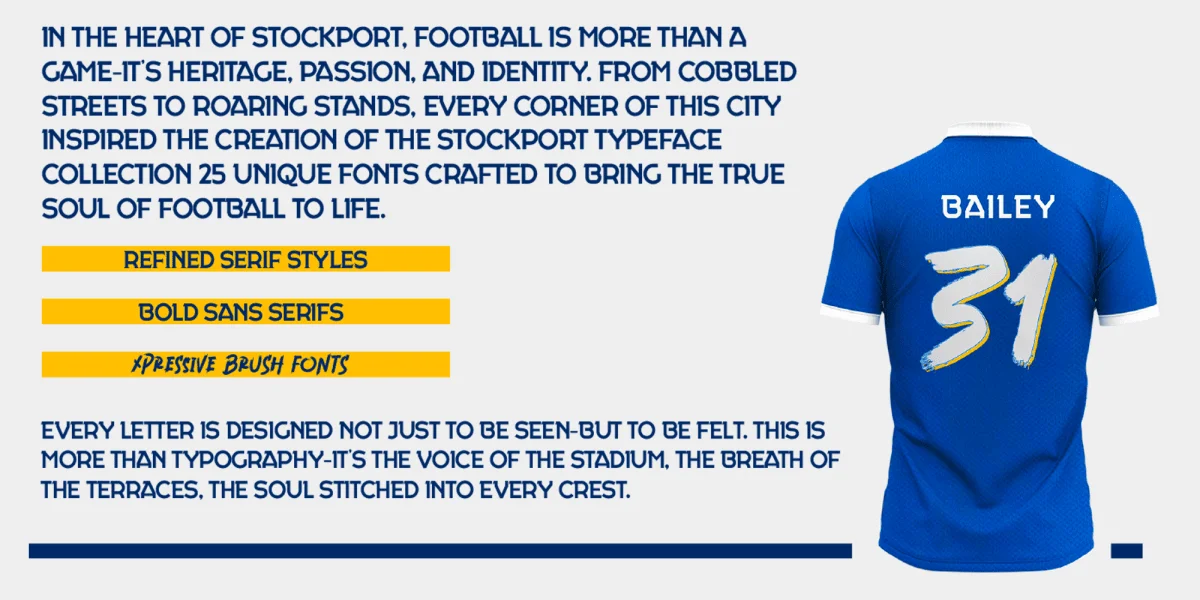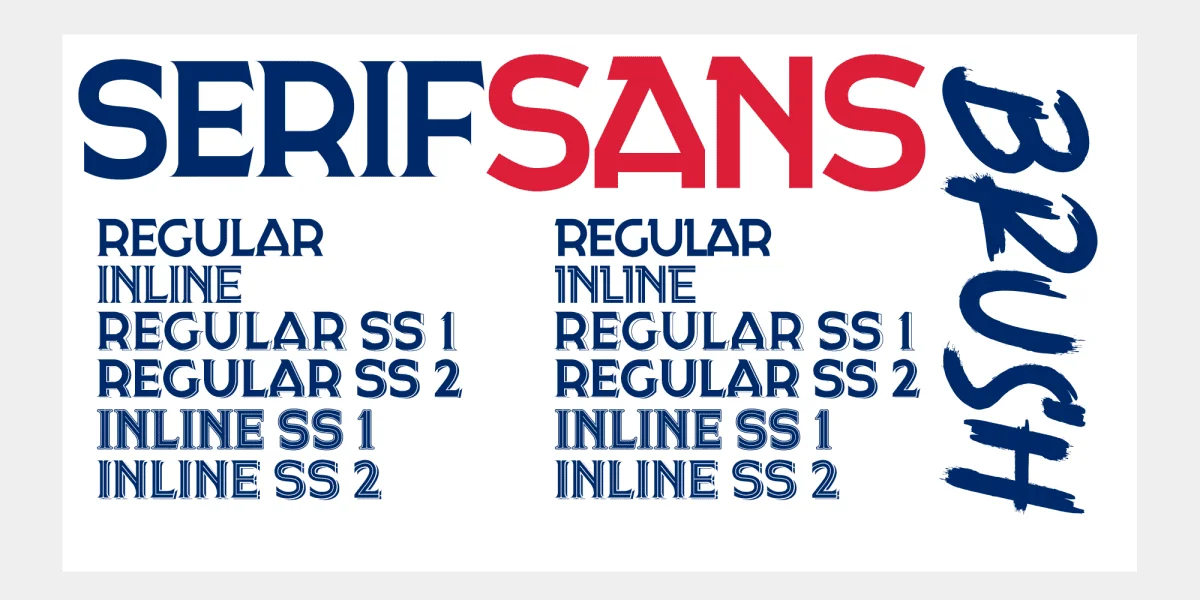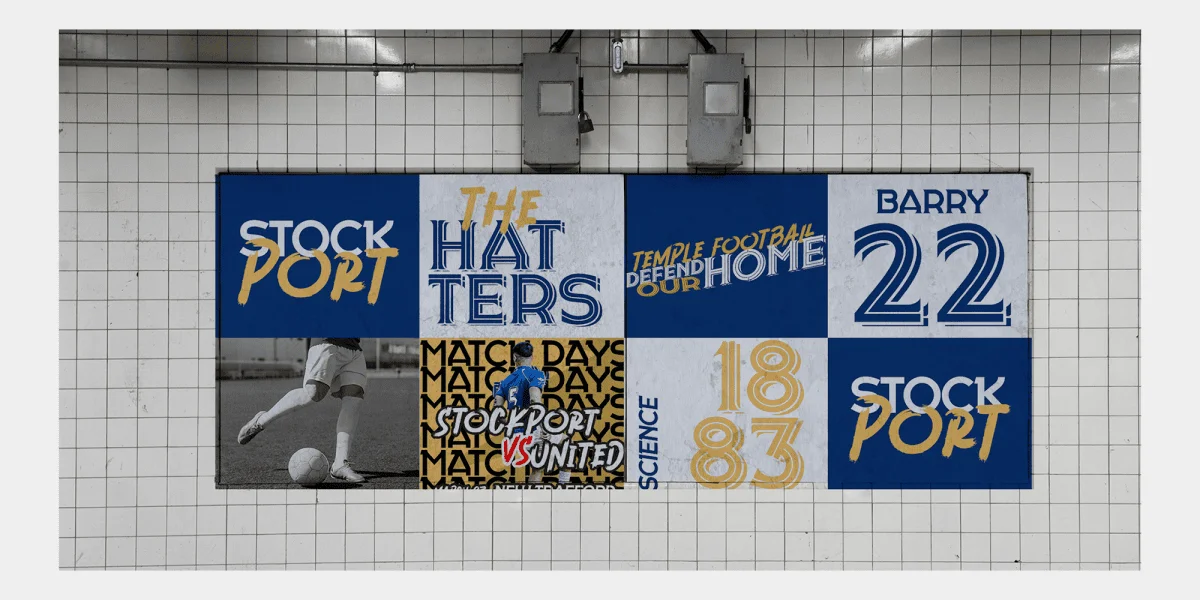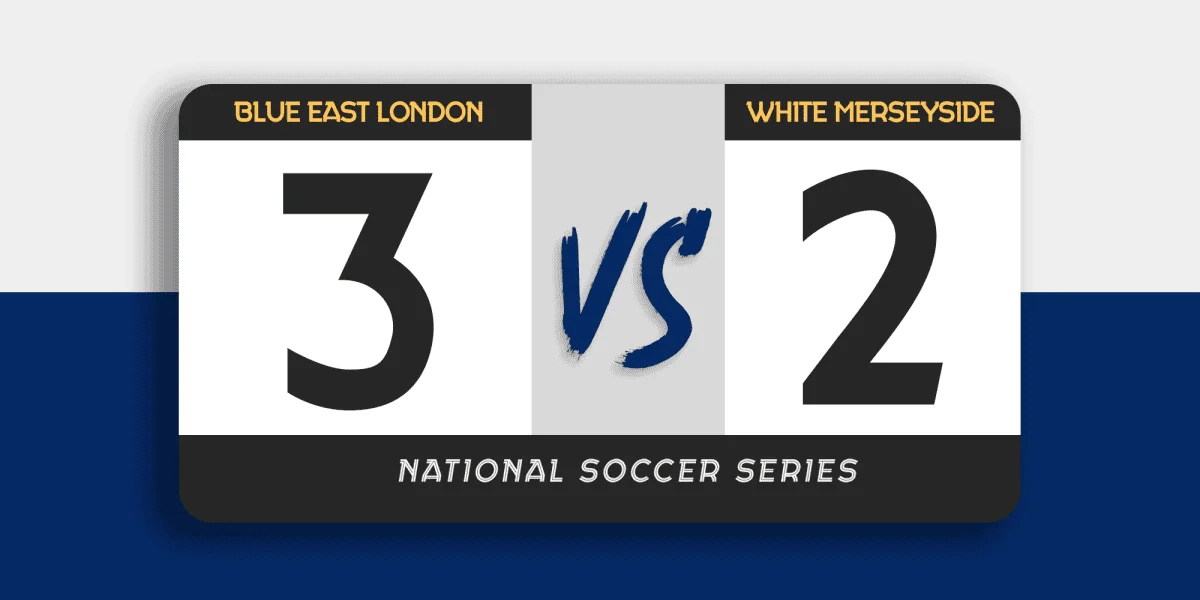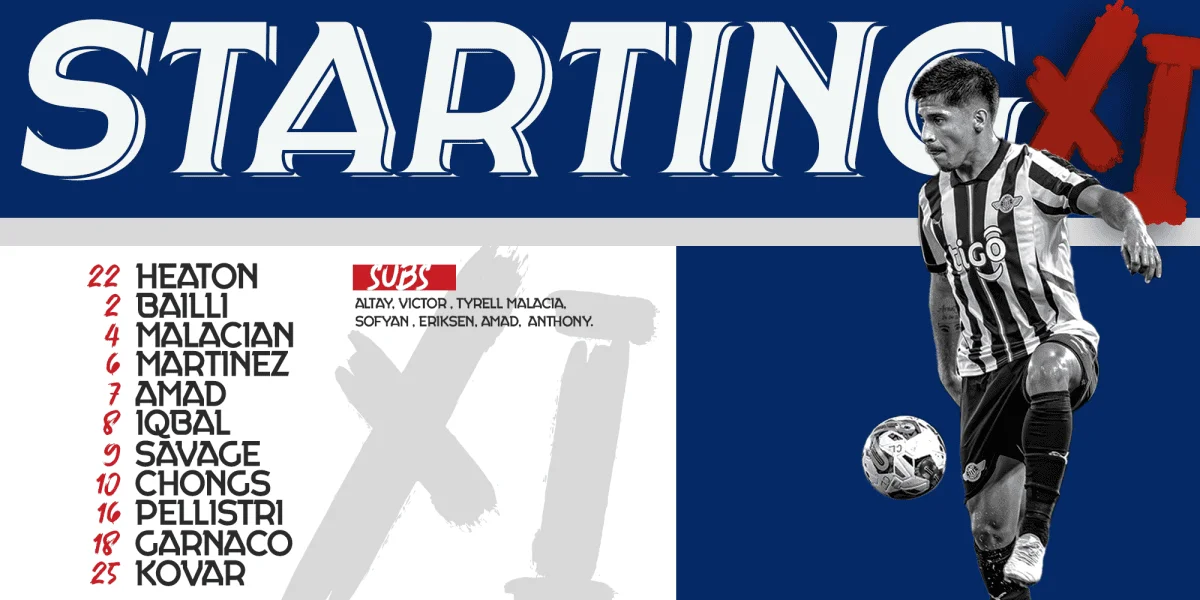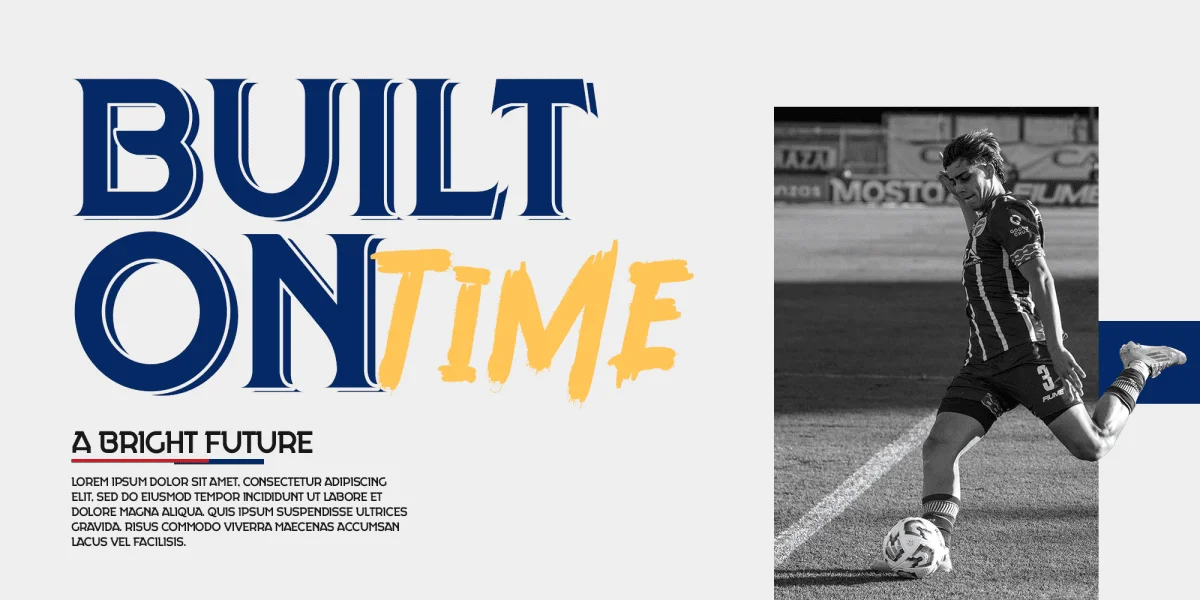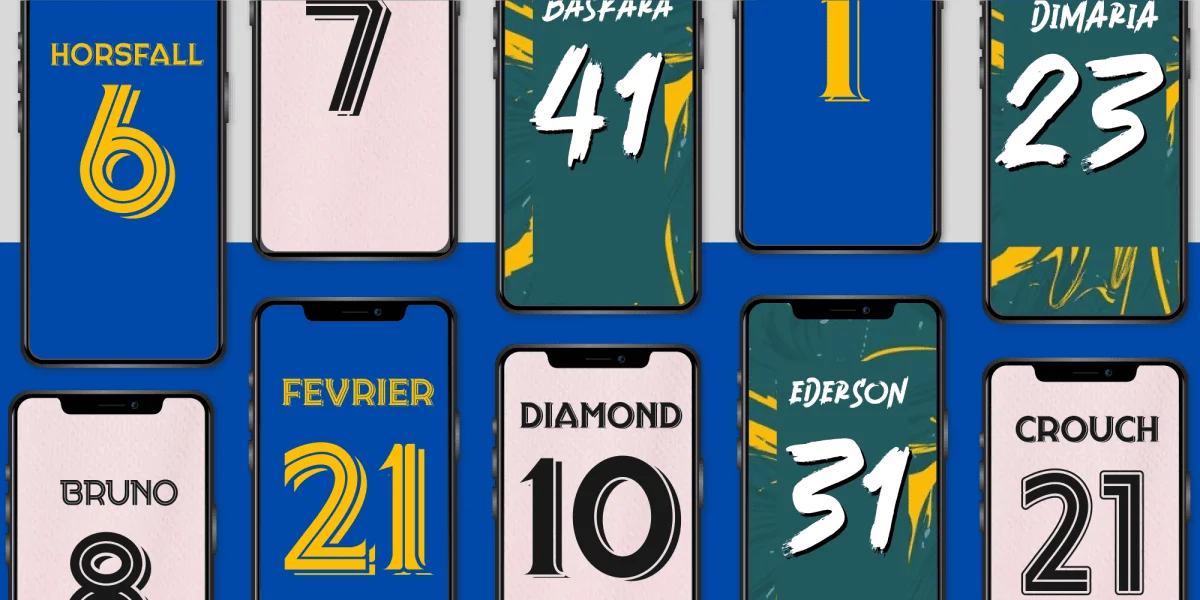
Stockport a condensed sport .
in the heart of Stockport, football is more than a game—it’s heritage, passion, and identity. From cobbled streets to roaring stands, every corner of this city inspired the creation of the Stockport Typeface Collection—25 unique fonts crafted to bring the true soul of football to life.
Refined Serif StylesFor clubs that honor tradition and a proud legacy.
Bold Sans SerifFor a clean, modern, and unmistakable identity.
Xpressive Brush FontsFor raw energy, emotion, and unwavering spirit.
Every letter is designed not just to be seen—but to be felt. This is more than typography—it’s the voice of the stadium, the breath of the terraces, the soul stitched into every crest.
Therefore excellent to use for headers, logos, captions and posters, especially for the sports branding industry, but just as good for any other projects.